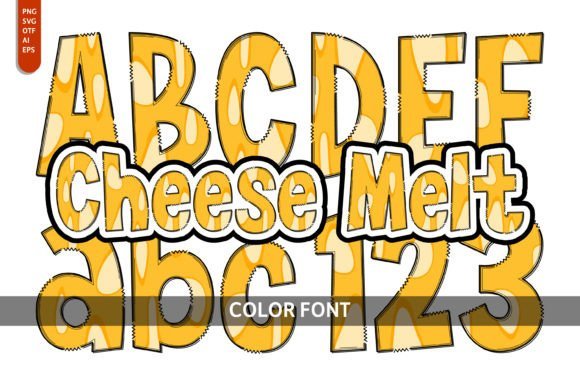
The Perfect Melt: Unleashing Creativity with Cheese Melt Font
As a designer, there’s nothing quite like the thrill of bringing a project to life. You’ve poured over your ideas, crafted the perfect concept, and finally, it’s time to choose the perfect font. That’s where the delightful Cheese Melt Font comes in – a colorful, whimsical addition that’s sure to elevate your designs to the next level.
With its playful feel, Cheese Melt Font is a go-to choice for designers looking to create engaging and artistic pieces, such as children’s books, posters, and invitations. Its compatibility with a range of design software, including PhotoShop, Illustrator, and Inkscape, makes it a valuable asset for any creative professional.
Cheese Melt Font Key Features
- Font Family: A unique, hand-drawn font with a distressed, retro feel.
- Unique Characteristics: Features a distinctive, melted cheese-inspired design element that can be customized through OpenType features.
- Language Support: Supports Latin, Cyrillic, and Greek scripts, making it a versatile choice for multilingual projects.
Review of Cheese Melt Font
I was excited to dive into the Cheese Melt Font, and overall, I’m satisfied with the result. Here’s what I think:
- Unique and playful feel: The Cheese Melt Font has a quirky, fun vibe that’s perfect for casual designs or food-related projects.
- High-resolution output: The font renders well at various sizes and resolutions, making it suitable for both digital and print use.
- Good legibility: Despite its playful nature, the font remains easy to read, even at smaller text sizes.
- Limited font weights: The Cheese Melt Font only comes in a few font weights, which may limit its versatility in certain design scenarios.
- Not ideal for formal designs: The font’s playful feel may not be suitable for formal or professional projects, where a more conservative font is preferred.
Overall, I think the Cheese Melt Font is a solid choice for designers who need a fun, casual font. While it has some limitations, its unique feel and good legibility make it a great addition to any design toolkit.
For the best results, use the Cheese Melt Font in conjunction with bold or italic text styles to create visual interest. Experiment with different font sizes and colors to enhance the overall design.
The Cheese Melt Font is ideal for use in headings, titles, and logo designs where a playful and unique font style is desired. It is particularly well-suited for food-related branding and marketing materials.